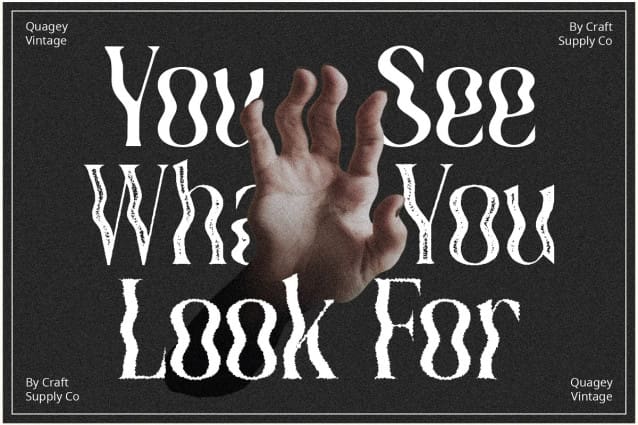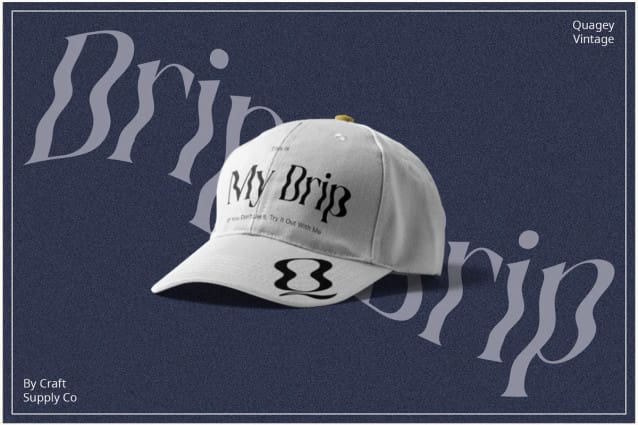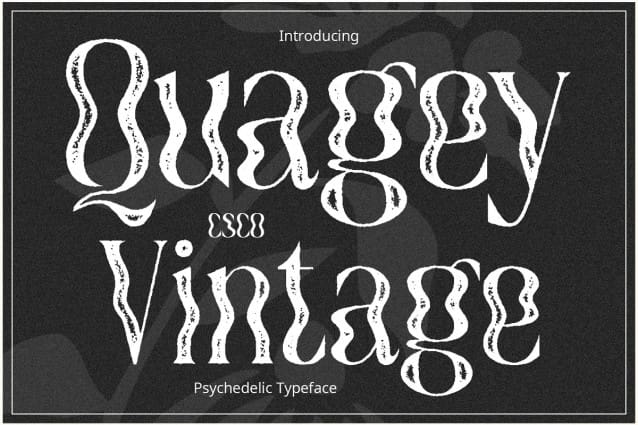
Quagey Vintage Font
Quagey Vintage Font – Stamp Font introduces a unique blend of styles. It’s a display font with a psychedelic twist. Perfect for those seeking a vintage flair, it stands out. This font captures a retro essence, ideal for various designs.
This font takes inspiration from the psychedelic era. Its letters twist and turn, creating a mesmerizing effect. The psychedelic style adds a creative touch. It makes any text lively and eye-catching. This effect works well in artistic or music-themed projects.
Quagey Vintage includes a vintage stamp look. This feature gives it a worn, timeless feel. The rough texture of the stamp effect adds authenticity. It’s perfect for projects needing a rustic or historical touch. This effect blends seamlessly with the psychedelic style.
This font is versatile, suitable for many design needs. It’s easy to read, despite its unique style. Quagey Vintage is perfect for posters, logos, and more. Its accessibility ensures it appeals to a wide audience. This font brings a unique flair to any project.